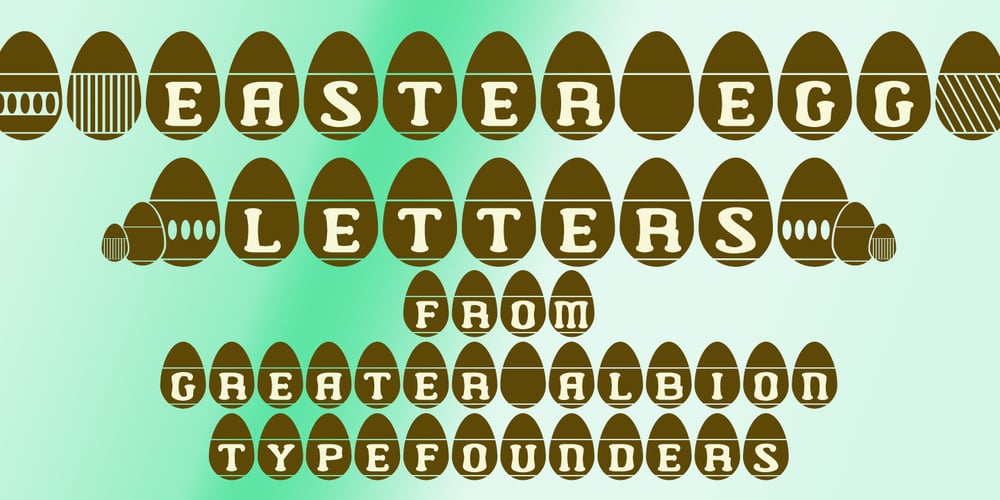
Easter Egg Letters
Easter Egg Letters font
Easter Egg Letters Font Family was designed by Paul James Lloyd and published by Greater Albion Typefounders. Easter Egg Letters contains 1 styles and family package options. A fun typeface for Easter, which lets you make banners and headings with eggs enclosed in letters. Chocolate anyone?